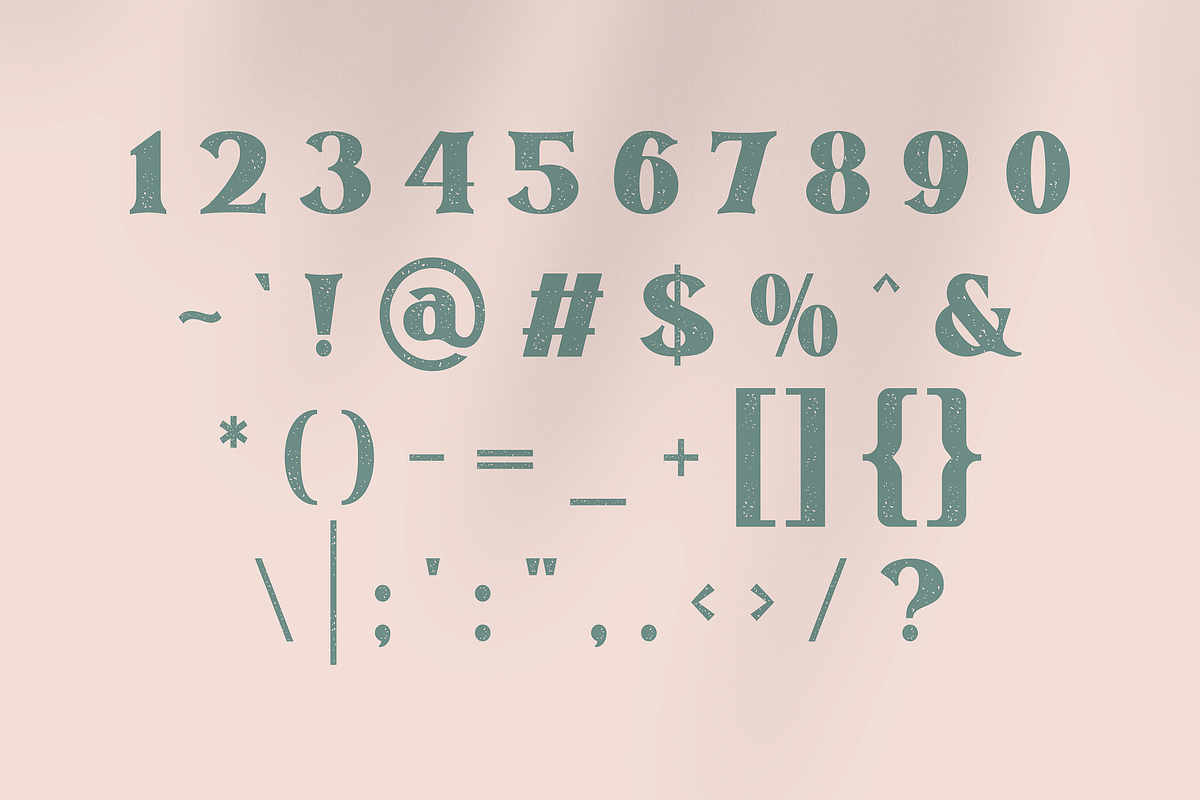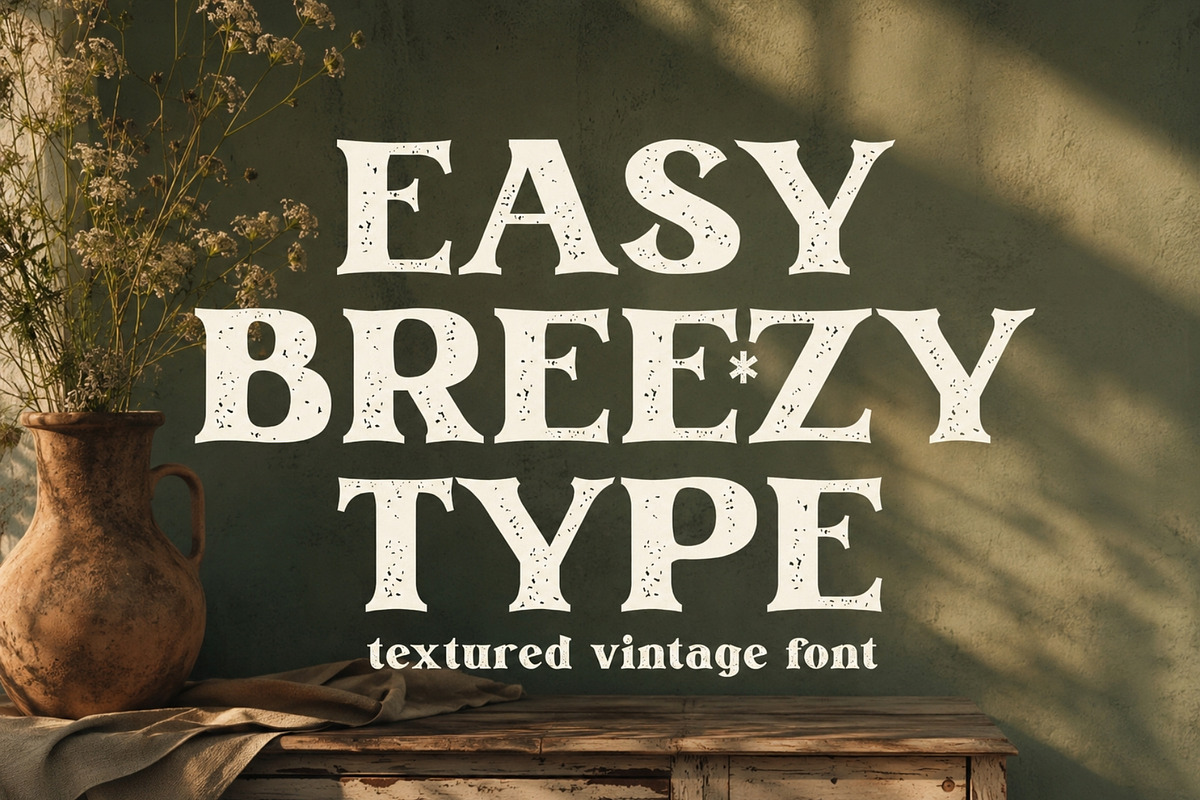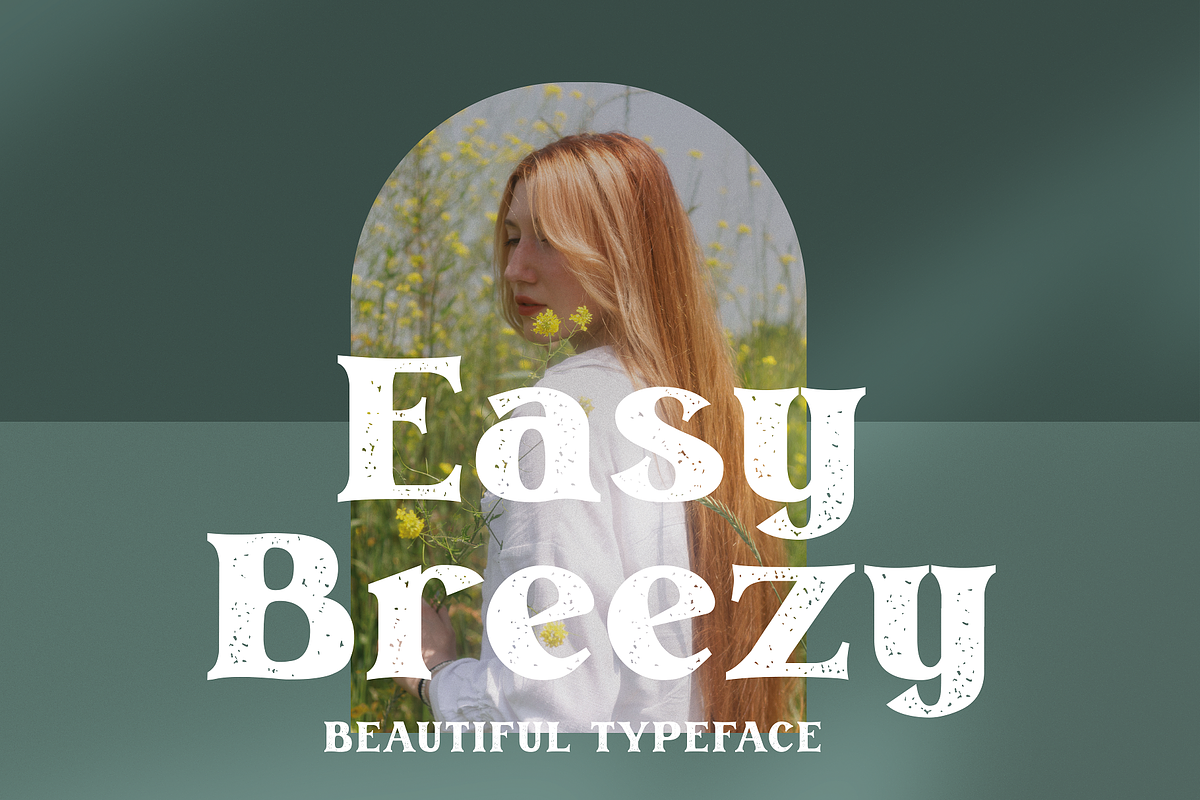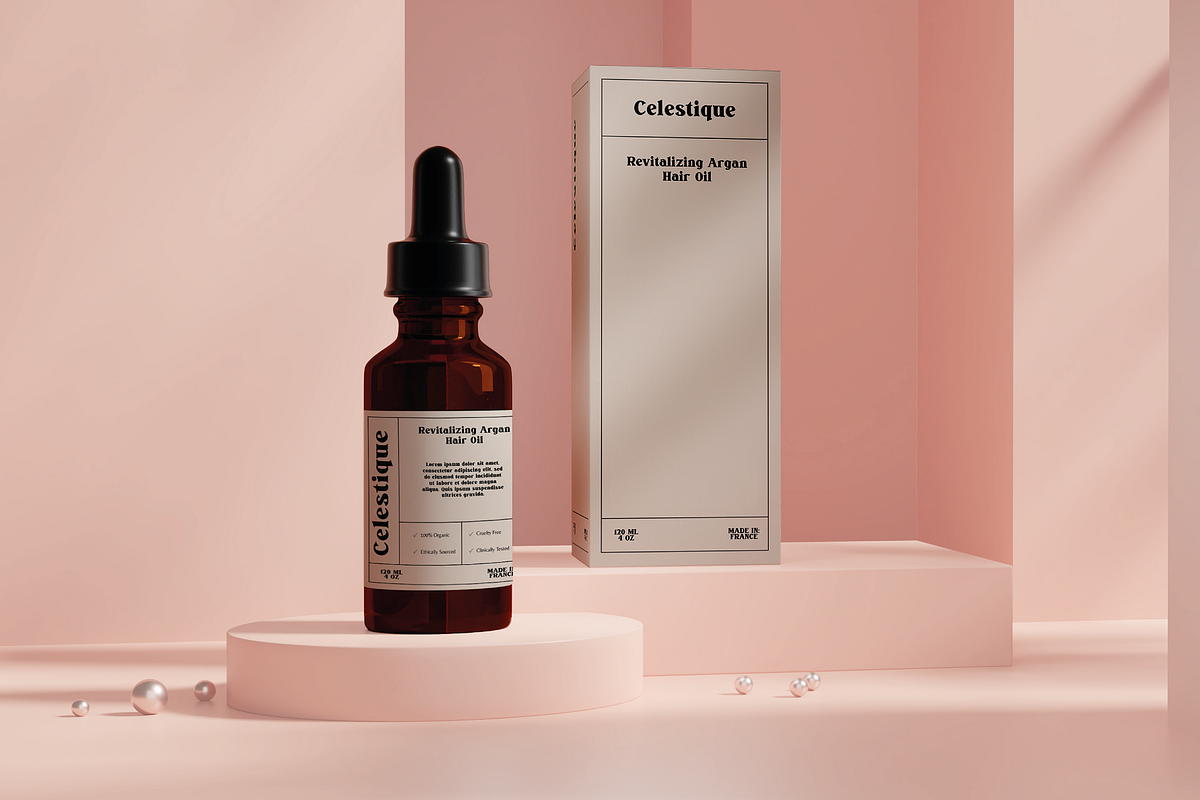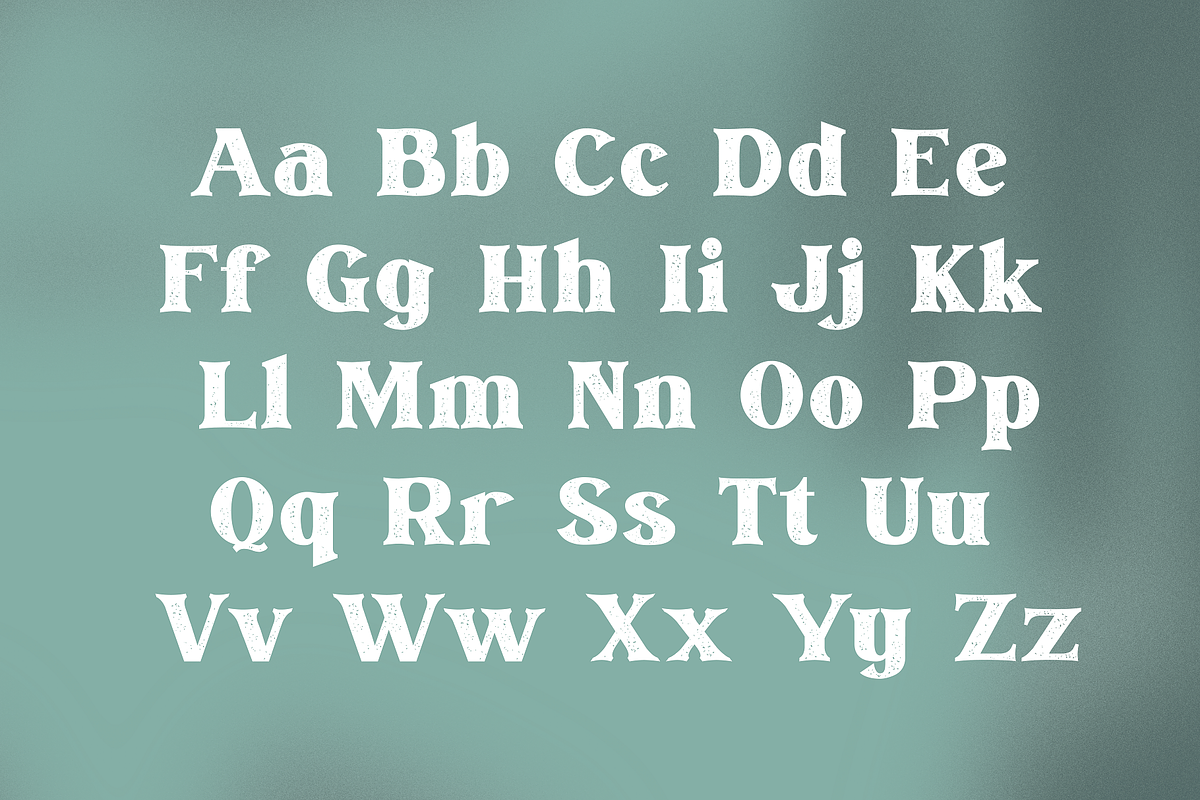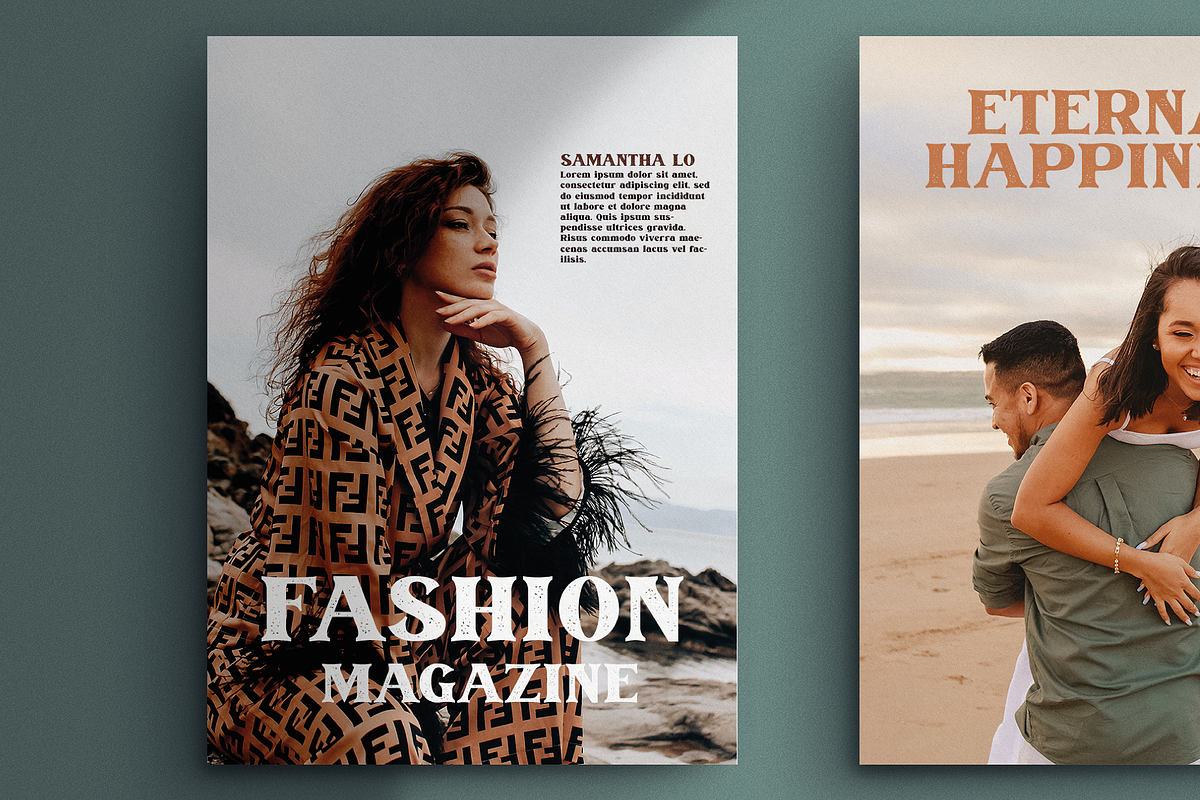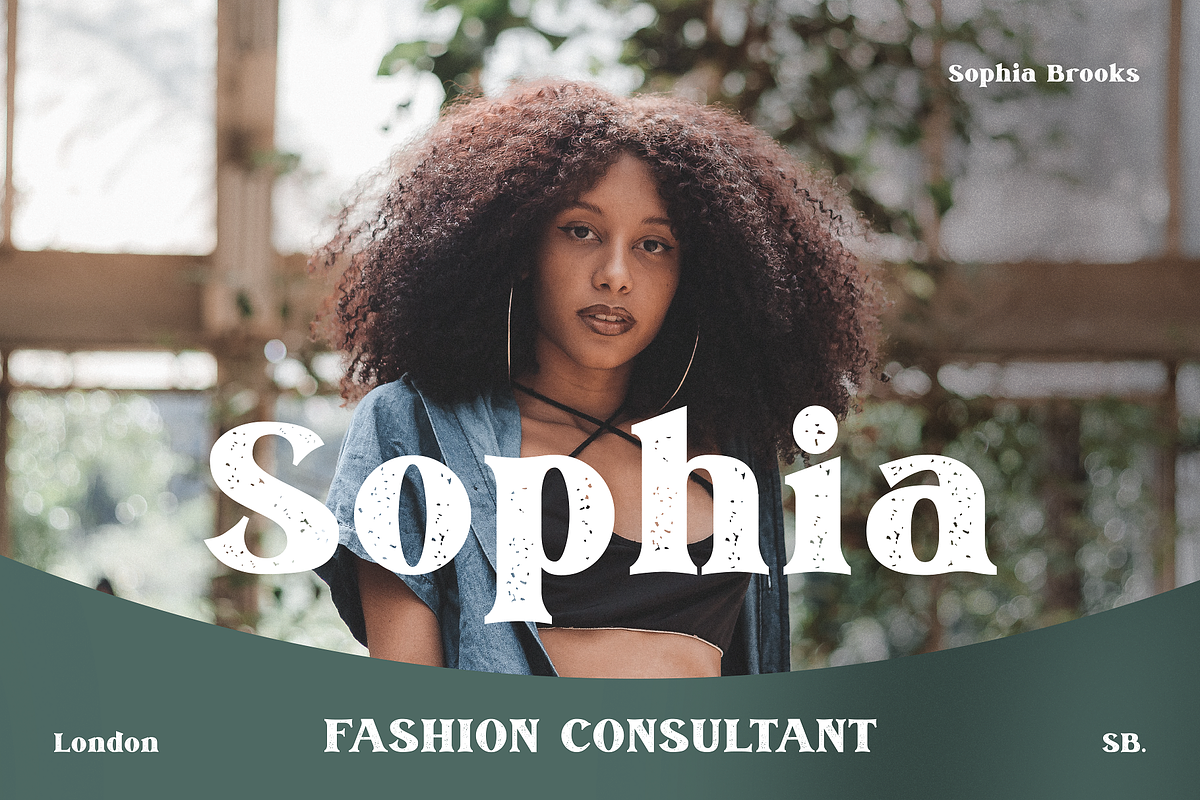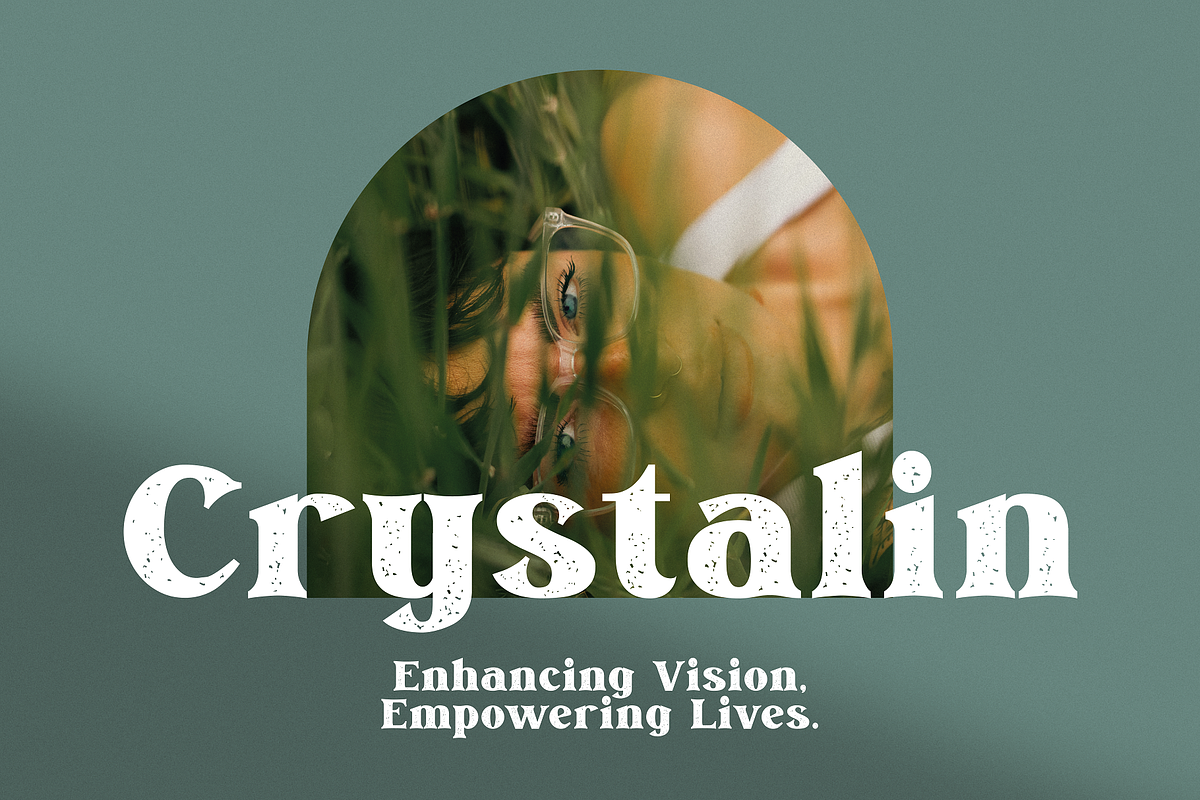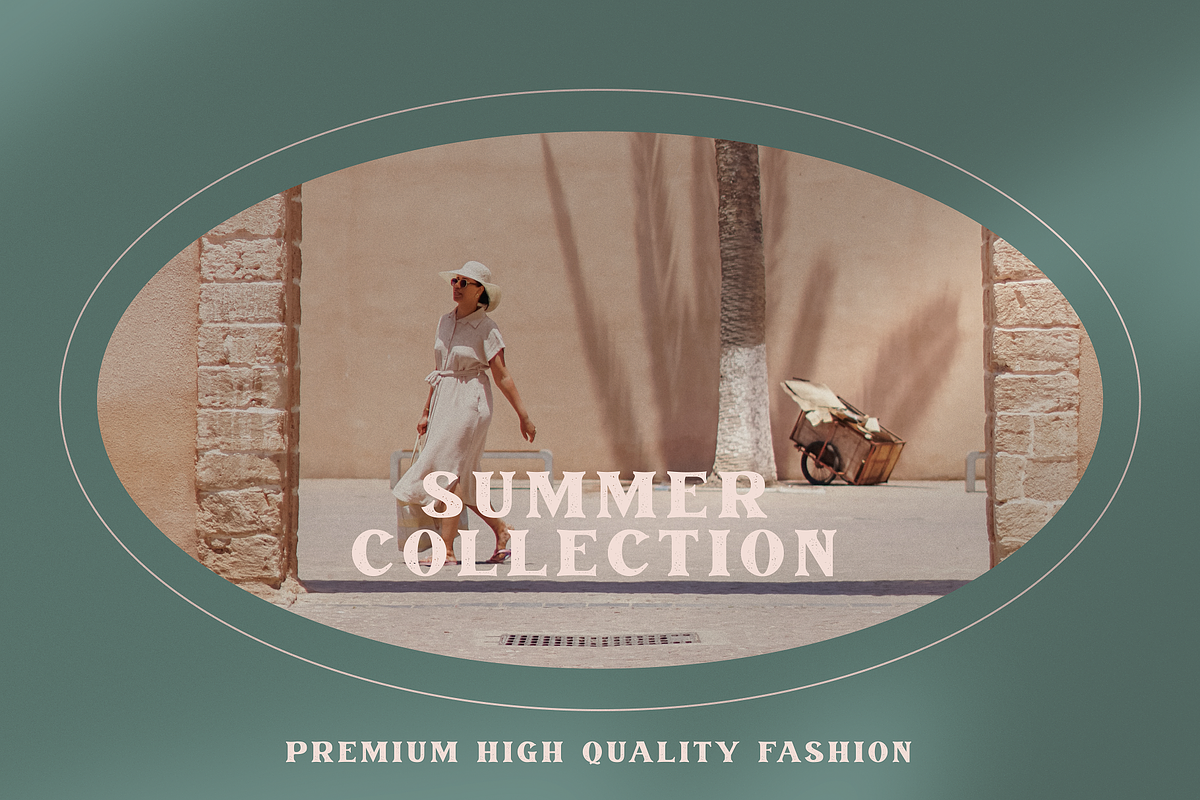
Easy Breezy - Textured Vintage Type
Introducing Easy Breezy, a font that effortlessly transports you to a bygone era of carefree charm and nostalgic beauty. Inspired by the retro styles of the past, this vintage gem captures the essence of a relaxed and laid-back vibe.
Its flowing letterforms and playful curves breathe life into your designs, exuding a sense of whimsy and joy. With Easy Breezy, your projects will radiate a delightful vintage aura, whether you're designing invitations, branding materials, or signage. Let this font whisk you away to a world of sunny days, gentle breezes, and endless possibilities.
Embrace the effortless beauty of Easy Breezy and create designs that capture the heart with their timeless appeal. Experience the nostalgia, embrace the freedom, and let your creativity soar with Easy Breezy at your fingertips.